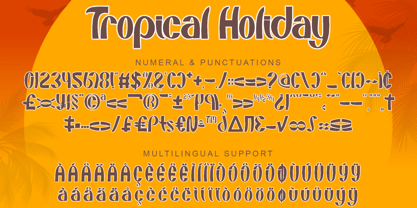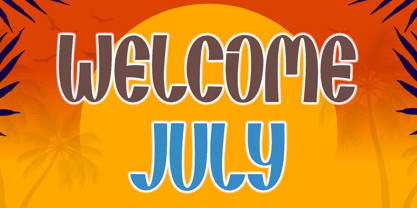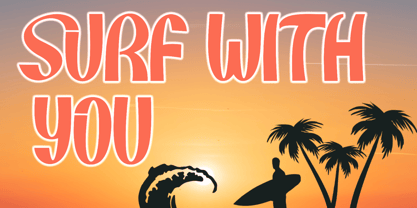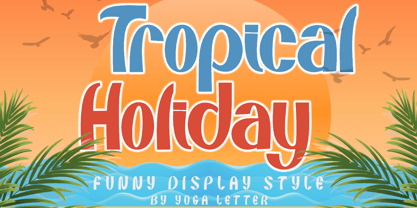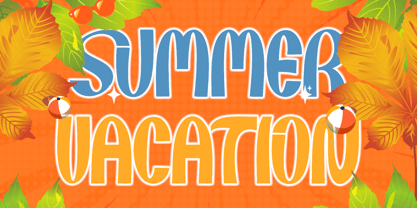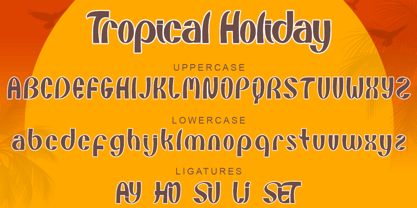
Tropical Holiday
by Yoga Letter
The Tropical Holiday Font Family was designed by Isroni Yoga Prasetya and published by Yoga Letter. Tropical Holiday contains 1 styles. More about this family
"Tropical Holiday" is a unique and elegant display font. This font is equipped with uppercase, lowercase, ligatures, numerals, punctuations and multilingual support. It is very suitable for summer, vacation, camping, 4th of July, Christmas, Halloween, back to school, father's day and others.
Designers: Isroni Yoga Prasetya
Foundry: Yoga Letter